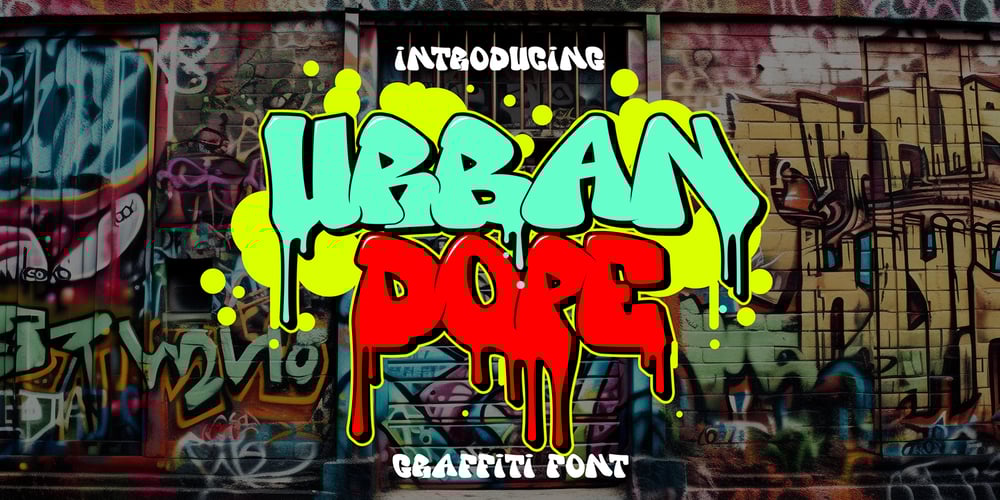
Urban Dope 3d Graffiti Font Family was designed by Sipanji and published by Sipanji21. Urban Dope 3d Graffiti contains 2 styles and family package options. “Urban Dope” is a graffiti font characterized by its bold letterforms and rounded corners. This font is ideal for a wide range of design projects, including headlines and various other creative endeavors. With its edgy and dynamic style, “Urban Dope” adds an urban flair to your typography, capturing the essence of street culture.